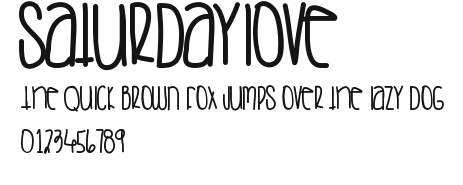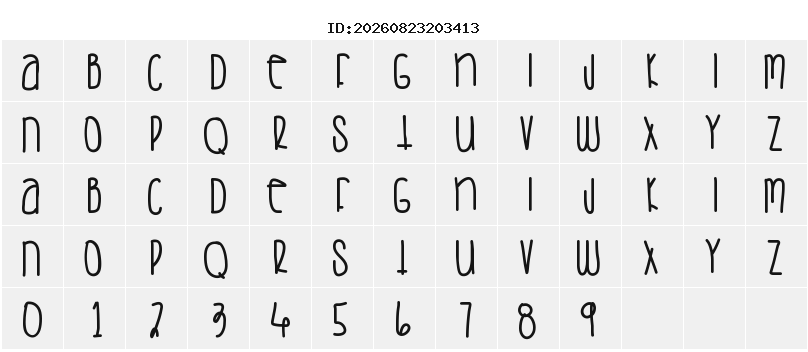
About SaturdayLove.ttf
SaturdayLove.ttf is a modern, elegant sans-serif font designed for ultimate readability and visual harmony. Perfect for branding, headlines, web design, and print materials.